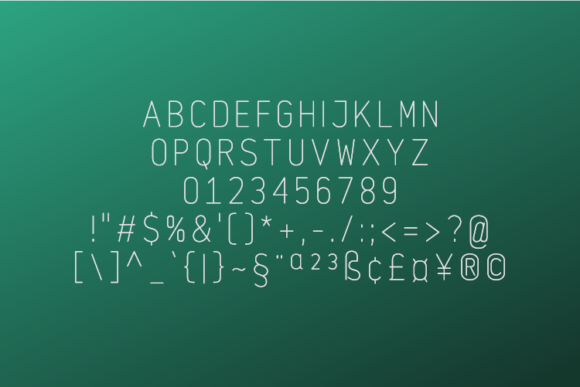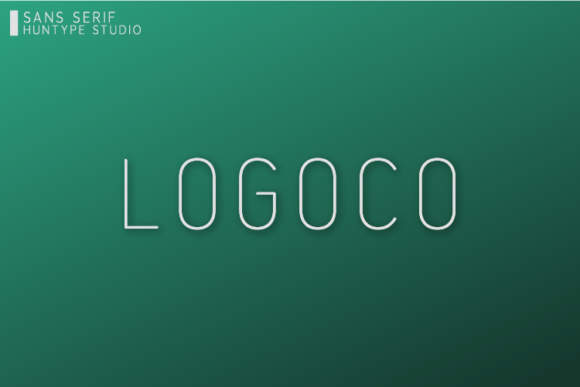
Introduction to Logoco Font
Logoco is a fancy, contemporary sans serif font.
With its neat and beautiful arrangement of letters, this typeface will look outstanding in both formal and non-formal designs .